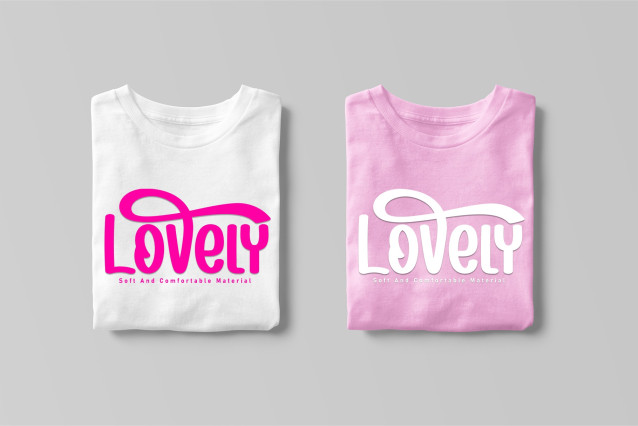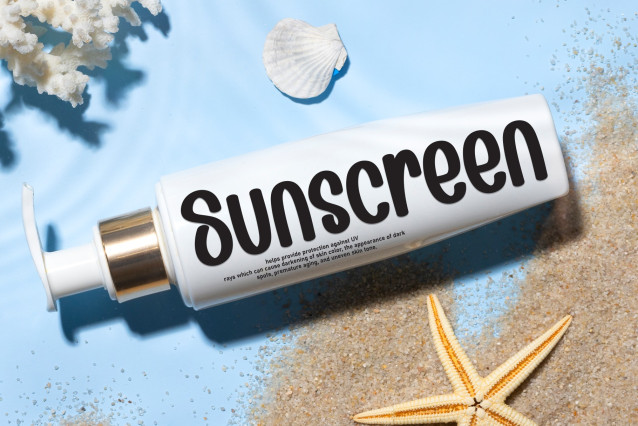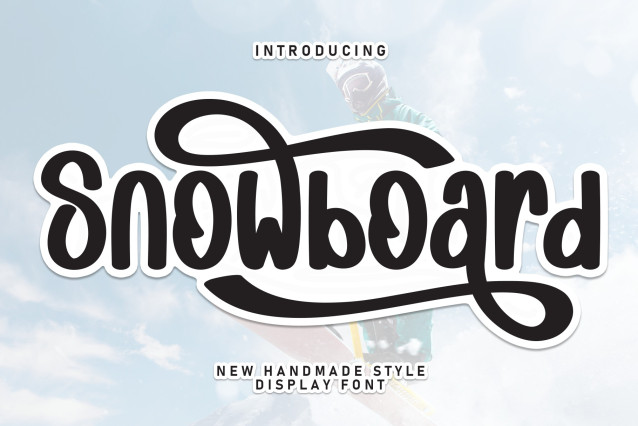
Snowboard Script Font
Snowboard Script Font – This script handwritten font brings a personal, stylish touch to your designs with its fluid strokes and natural flow. Perfectly mimicking the charm of real handwriting, it’s ideal for invitations, branding, greeting cards, quotes, social media graphics, and more. Whether you’re crafting something elegant or cozy, this font adds warmth and authenticity to any project.